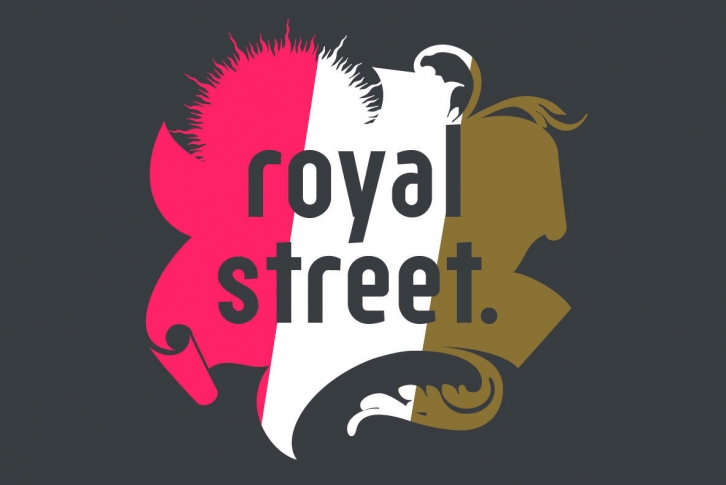
Royal Street is a collection of six condensed fonts for headlines—a voice rooted in American pop and tabloid hyperbole. Six weights of condensed Grotesque with true small caps, alternate shapes for both upper and lowercase to switch between grotesque and Deco voices, case-sensitive punctuation, and ligatures, usable in 87 languages.